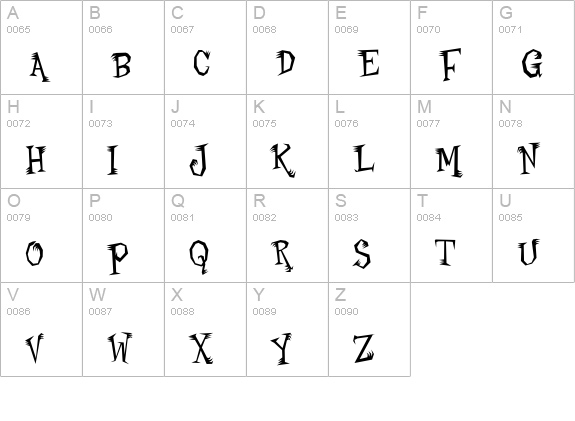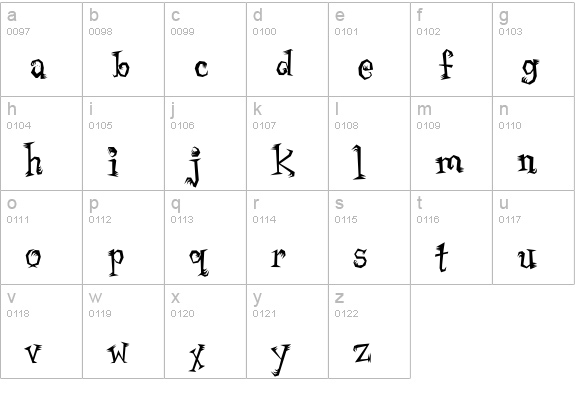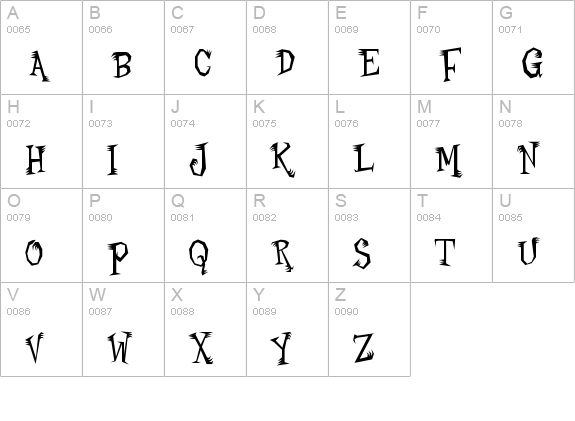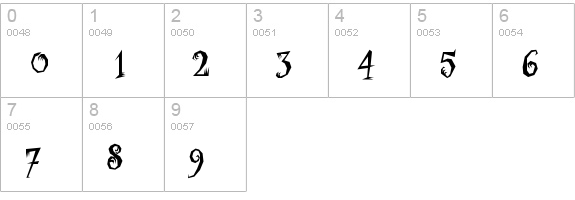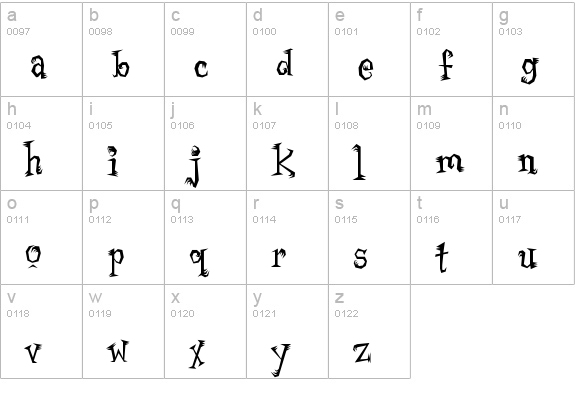
Mantisboy Font Details
Introducing Mantisboy font, a captivating typeface that effortlessly combines modern elegance with a touch of playfulness. This unique font is sure to make your designs stand out from the crowd with its eye-catching appeal and distinctive charm. With its sleek lines and stylish curves, Mantisboy is perfect for a wide range of design projects, from branding and logos to packaging and social media graphics. Its versatility allows it to effortlessly adapt to any style or concept, making it an invaluable tool for designers seeking a font that can truly elevate their work. What sets Mantisboy font apart is not only its captivating aesthetics but also its flexibility. It is meticulously designed to ensure legibility even at smaller sizes, making it ideal for both print and digital applications. Whether you're creating a bold headline or crafting a delicate body text, Mantisboy delivers a flawless reading experience. And the best part? Mantisboy font is available for free! You can easily download this remarkable font from FontsMarket.com, where it is readily accessible for all your creative endeavors. Embrace the freedom of creativity with Mantisboy, and let its charismatic personality captivate your audience. Don't miss out on this opportunity to enhance your designs with a font that embodies both style and functionality. So, if you're in search of a font that effortlessly combines elegance, playfulness, and legibility, look no further than Mantisboy font. Download it today from FontsMarket.com and unlock the boundless possibilities it offers for your next design project.